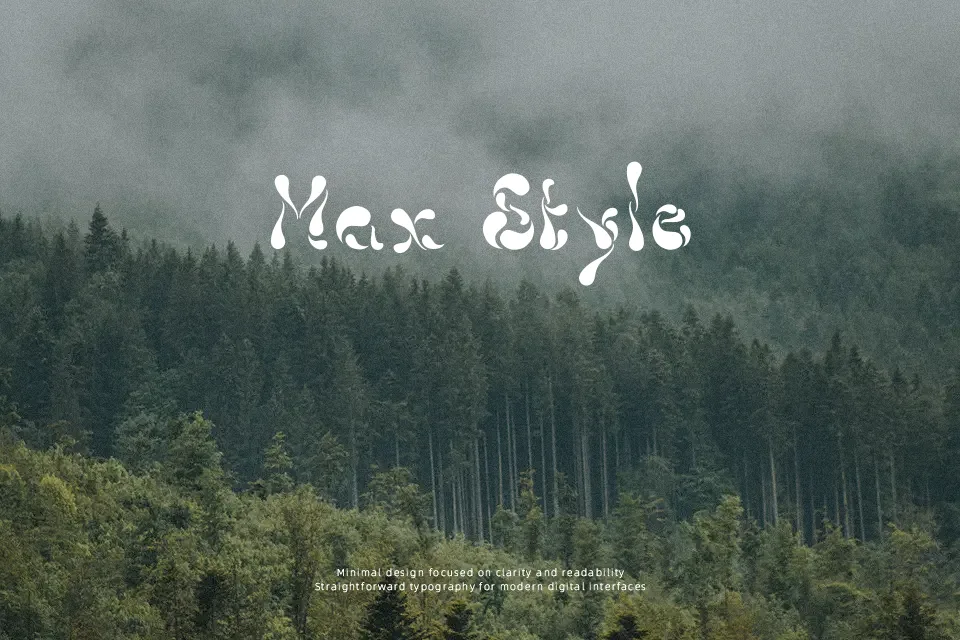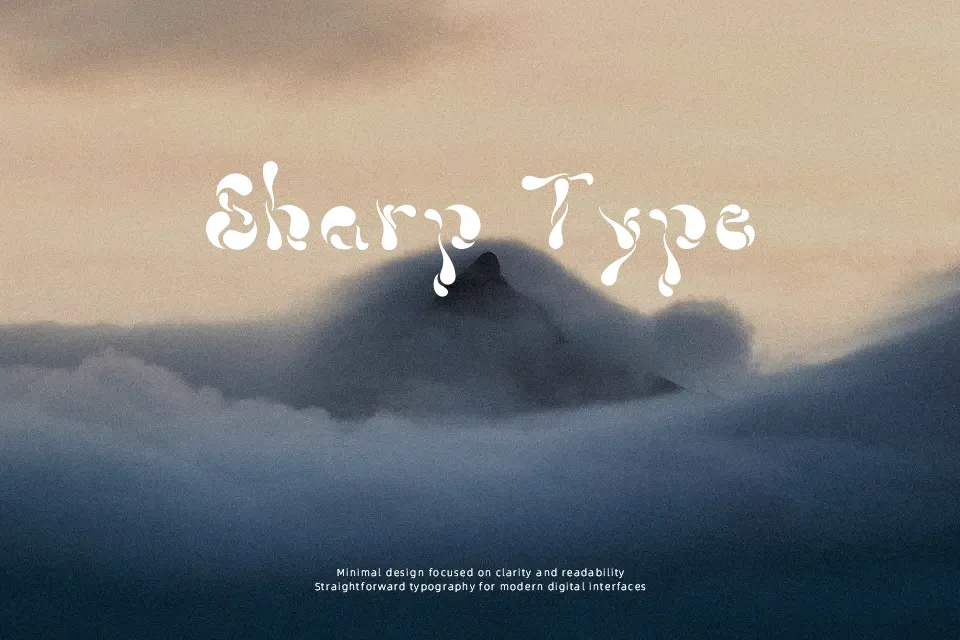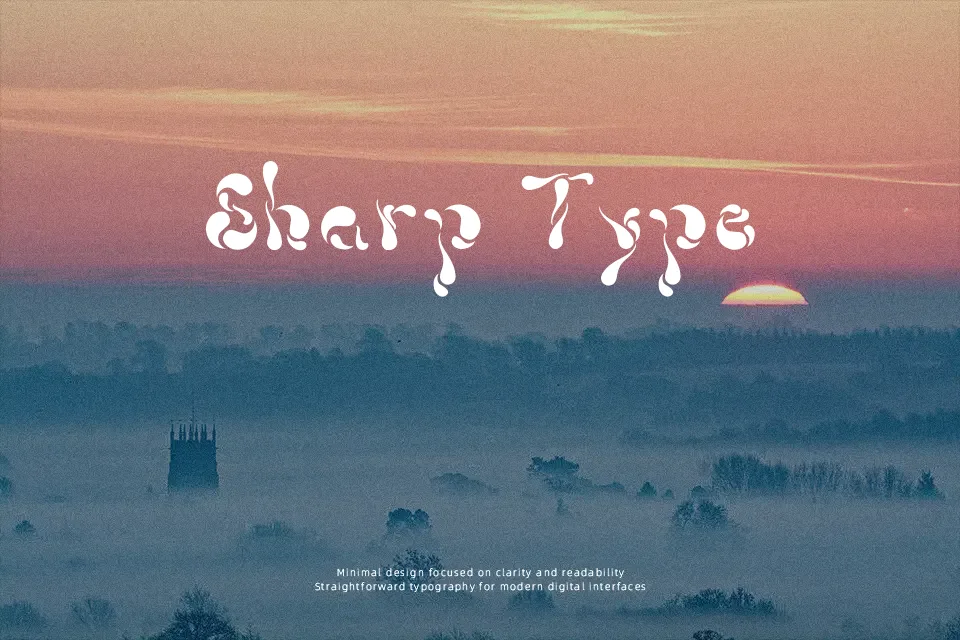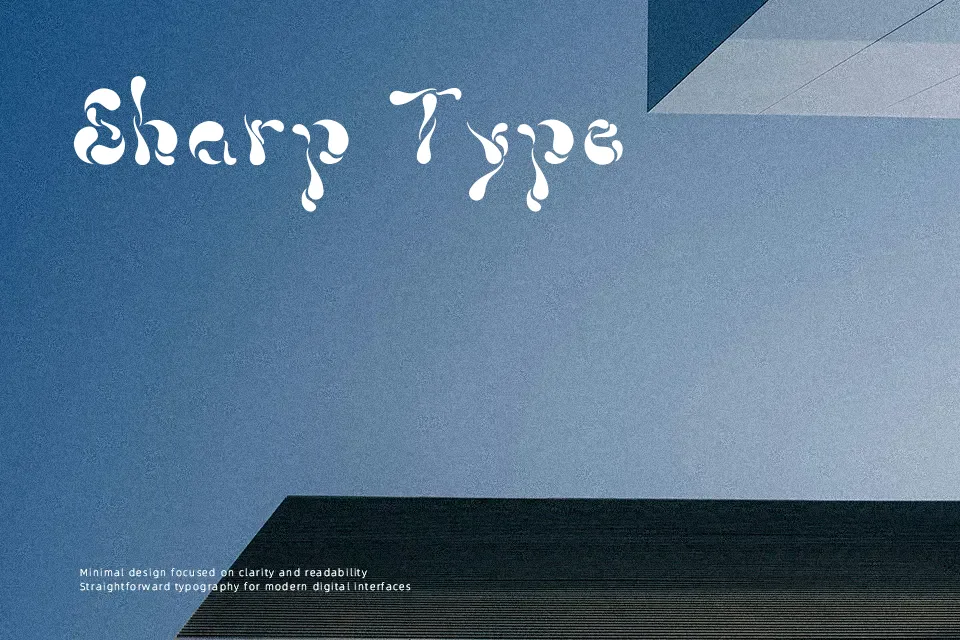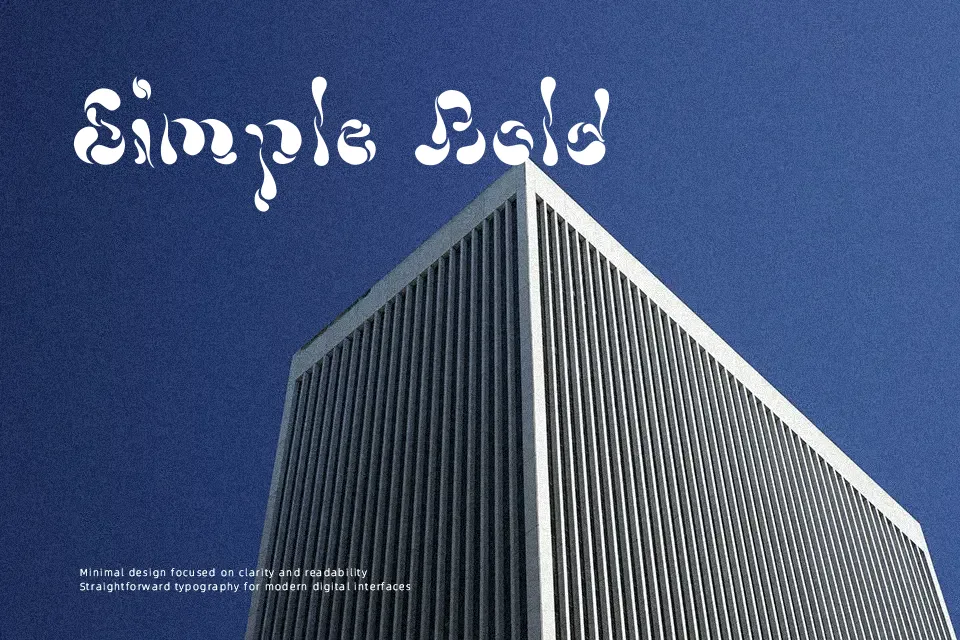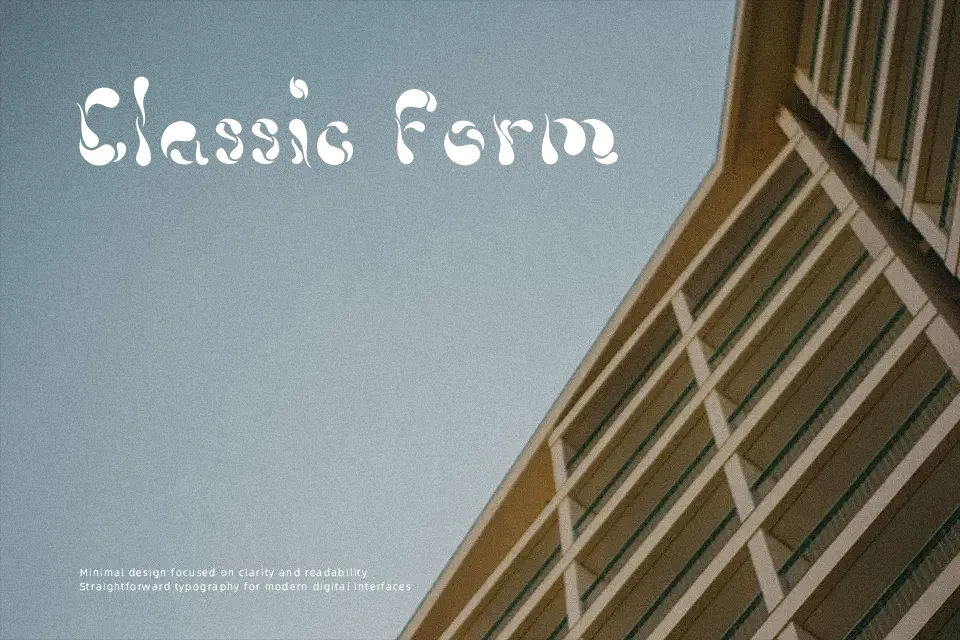
Dollop Font
Designed by K. Bishop Massey
Dollop Font is a decorative display face built from thick, high-contrast black forms carved by sharp interior gaps and swirling counters. The spacing feels compact, and each letter leans more on silhouette than clean readability, which gives it a playful but slightly eerie voice. It works best when you want a short word or title to look graphic on its own, especially on posters, themed event art, or packaging that needs a quirky dark twist. I would use it for a striking headline, not for anything informational. In smaller sizes or dense layouts, the letterforms start to blur together and lose their charm.
Perfect for halloween, headline, and packaging, with a creative and cartoon style.